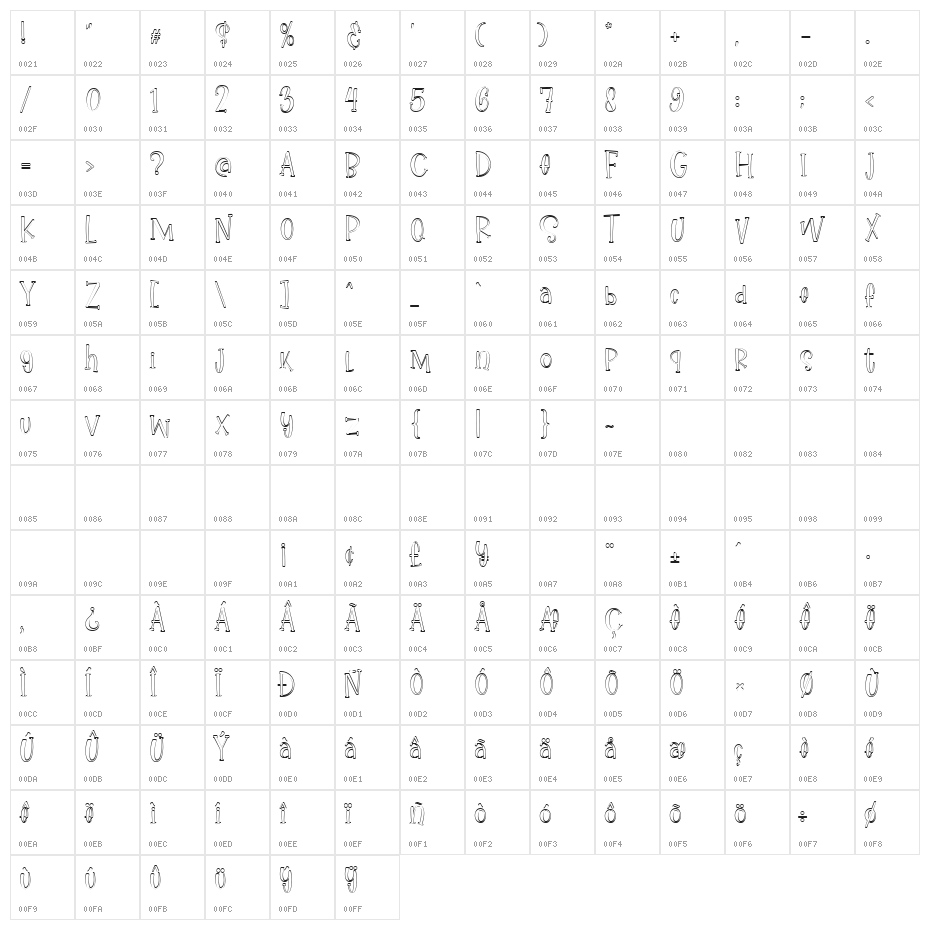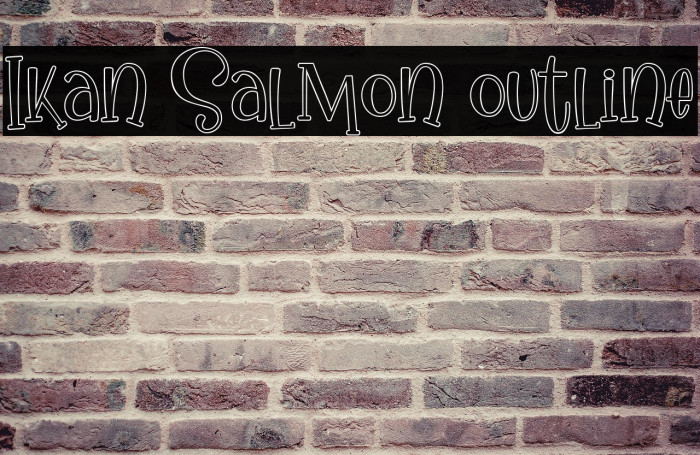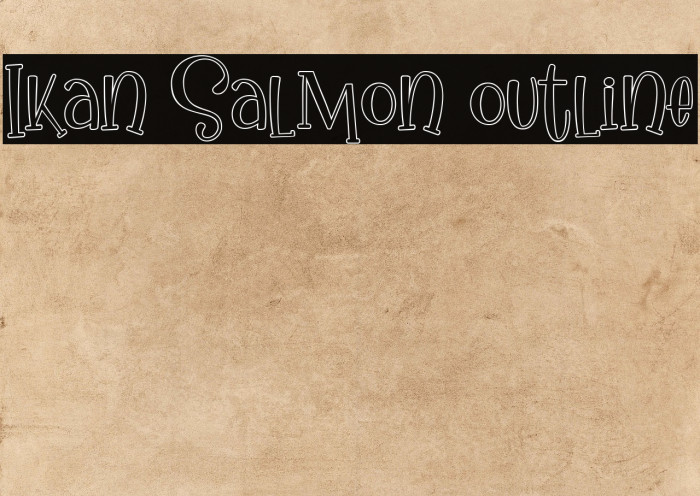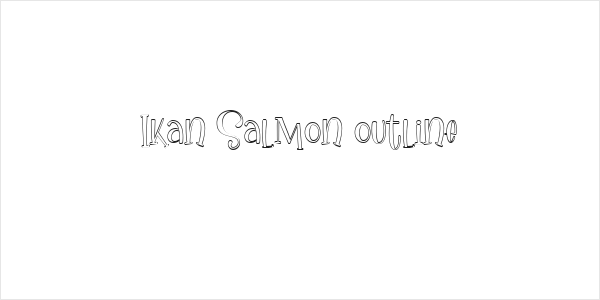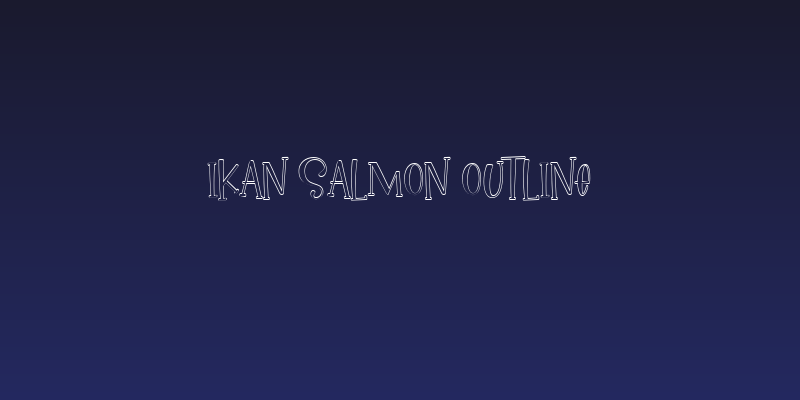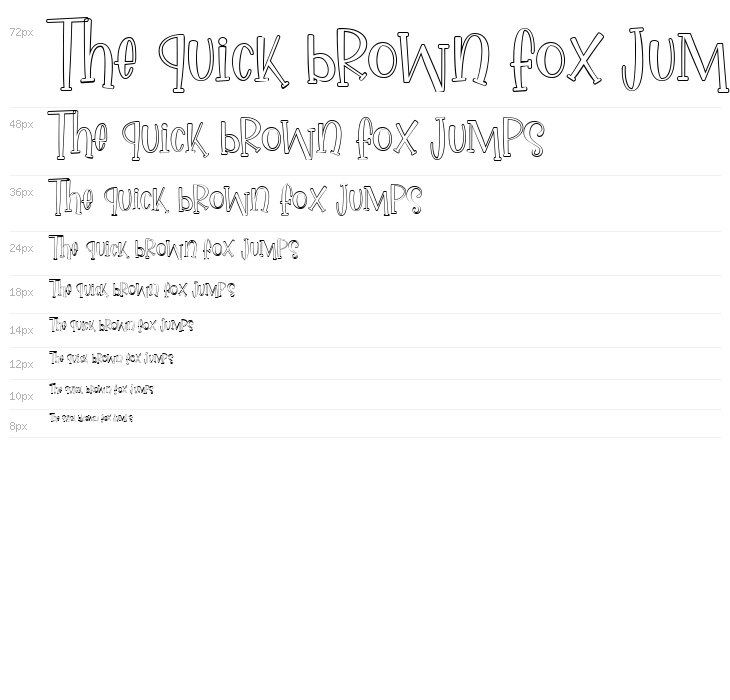
Ikan Salmon outline Font
Ikan Salmon outline Description
This playful and whimsical font features an outline style that gives it a light and airy feel. The characters are tall and slightly narrow, with a hand-drawn quality that adds a touch of informality and charm. The uppercase and lowercase letters maintain a consistent style, with rounded edges and a slight tilt that enhances the casual aesthetic. Numbers and special characters are designed to match the overall playful theme, making this font suitable for creative and fun projects. The outline nature of the font allows for versatility in design, as it can be filled with colors or patterns to suit various themes.
Overall StyleWhimsical
Use CaseHeadlines, Logos, Creative projects
Proposed ProjectsIdeal for children's books, playful branding, greeting cards, and creative posters.